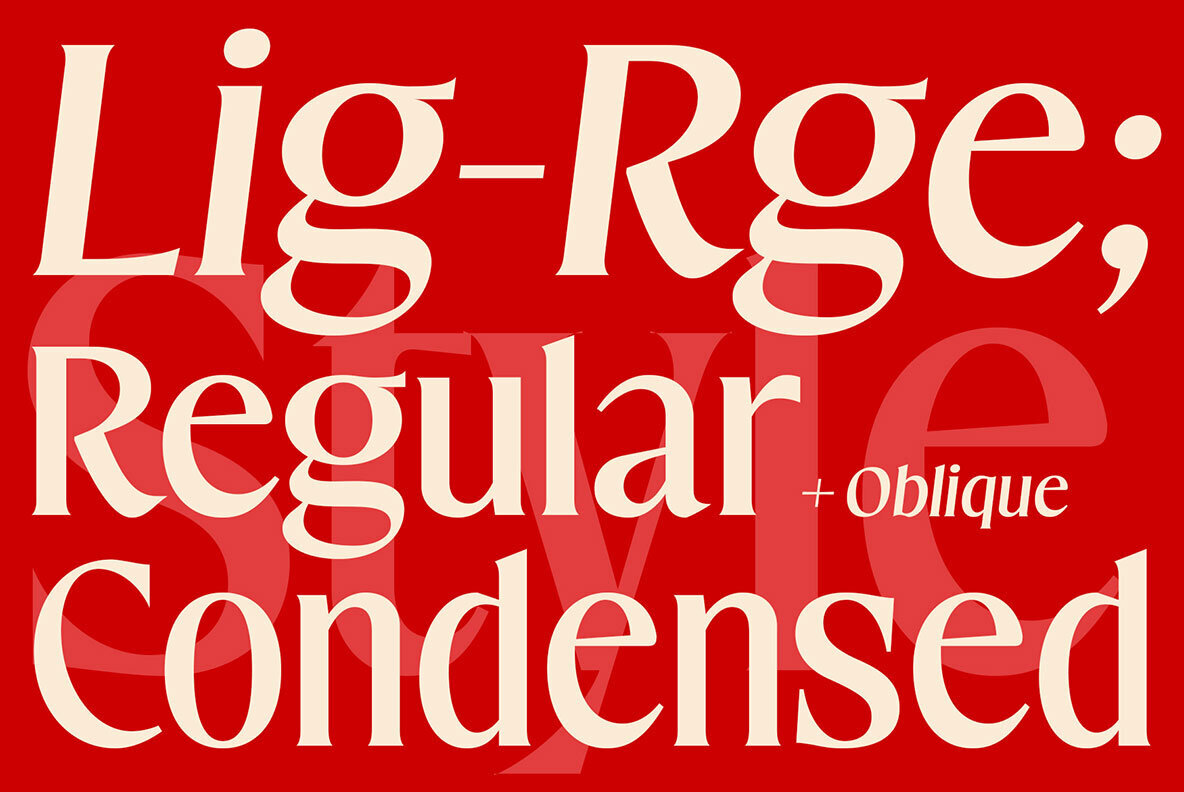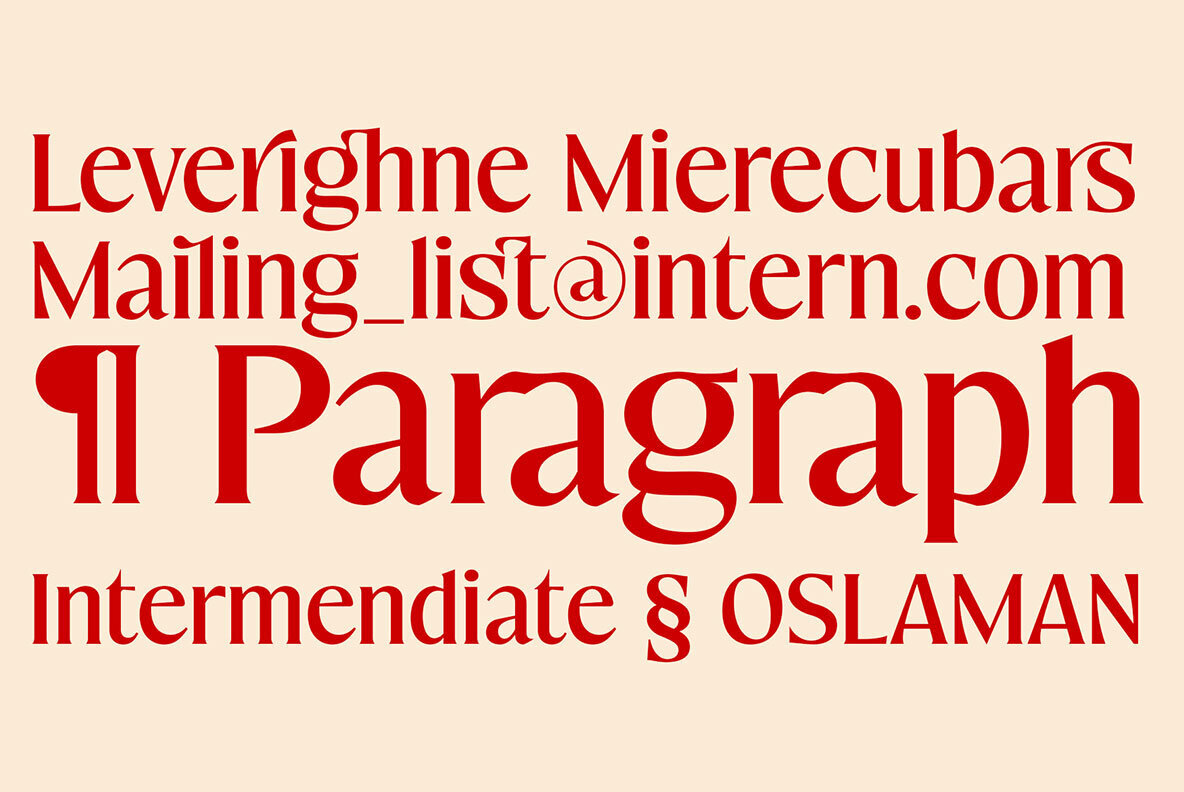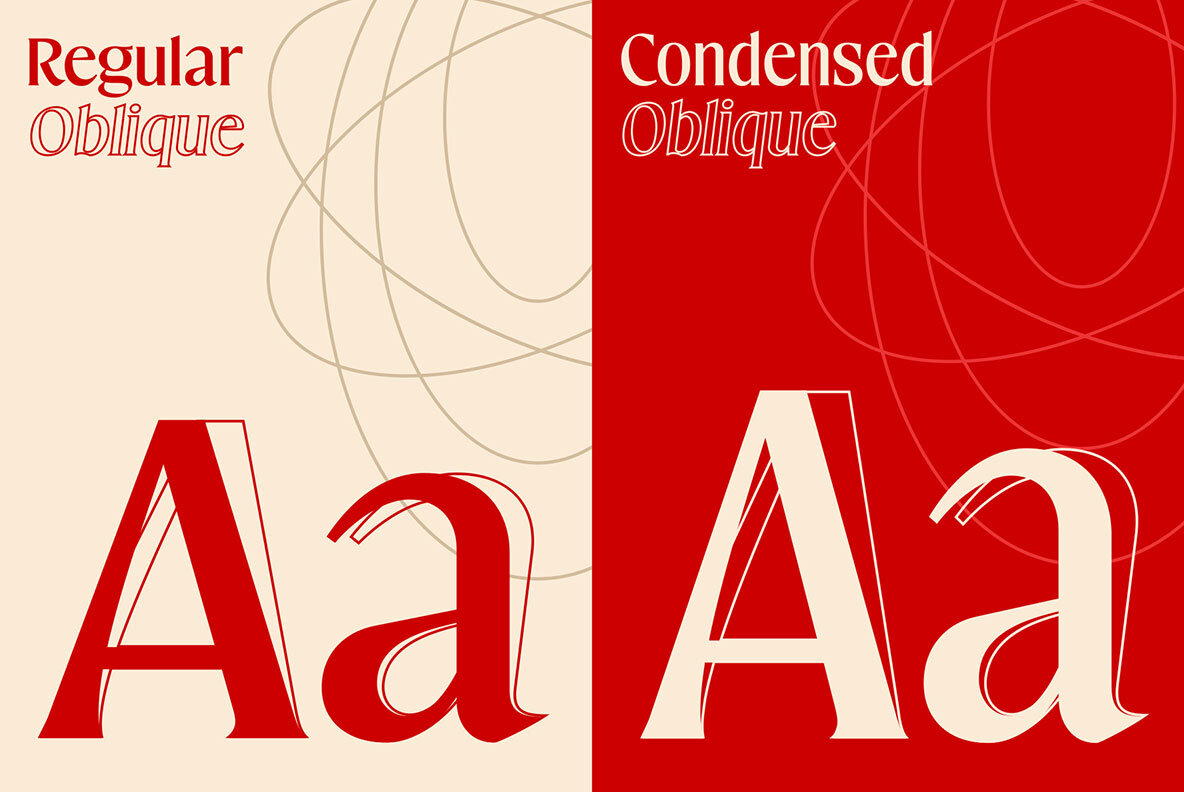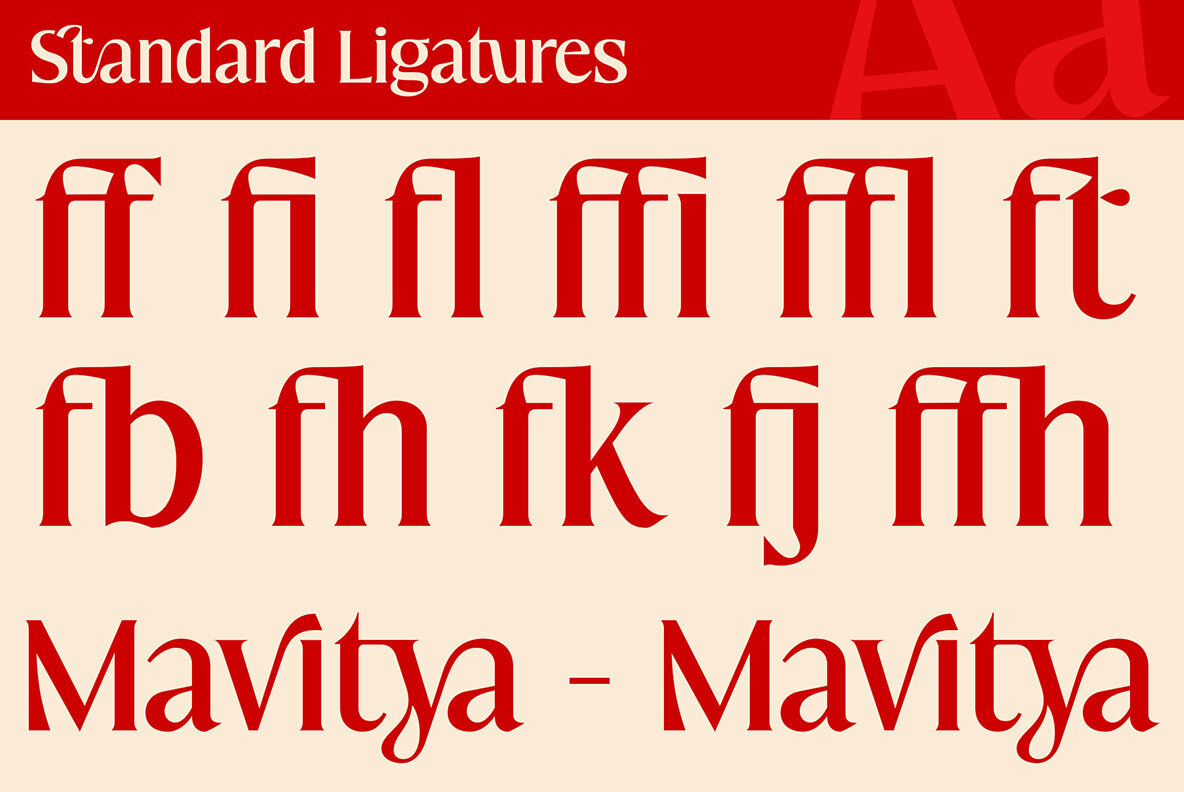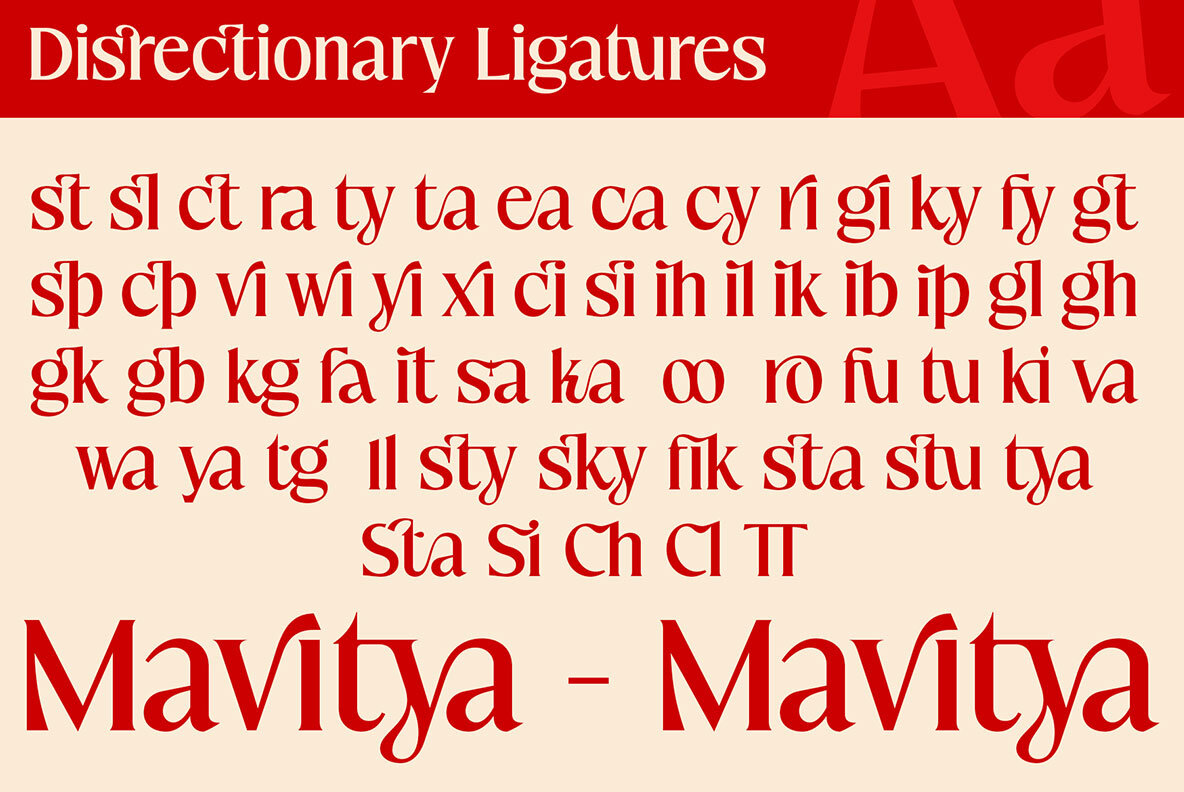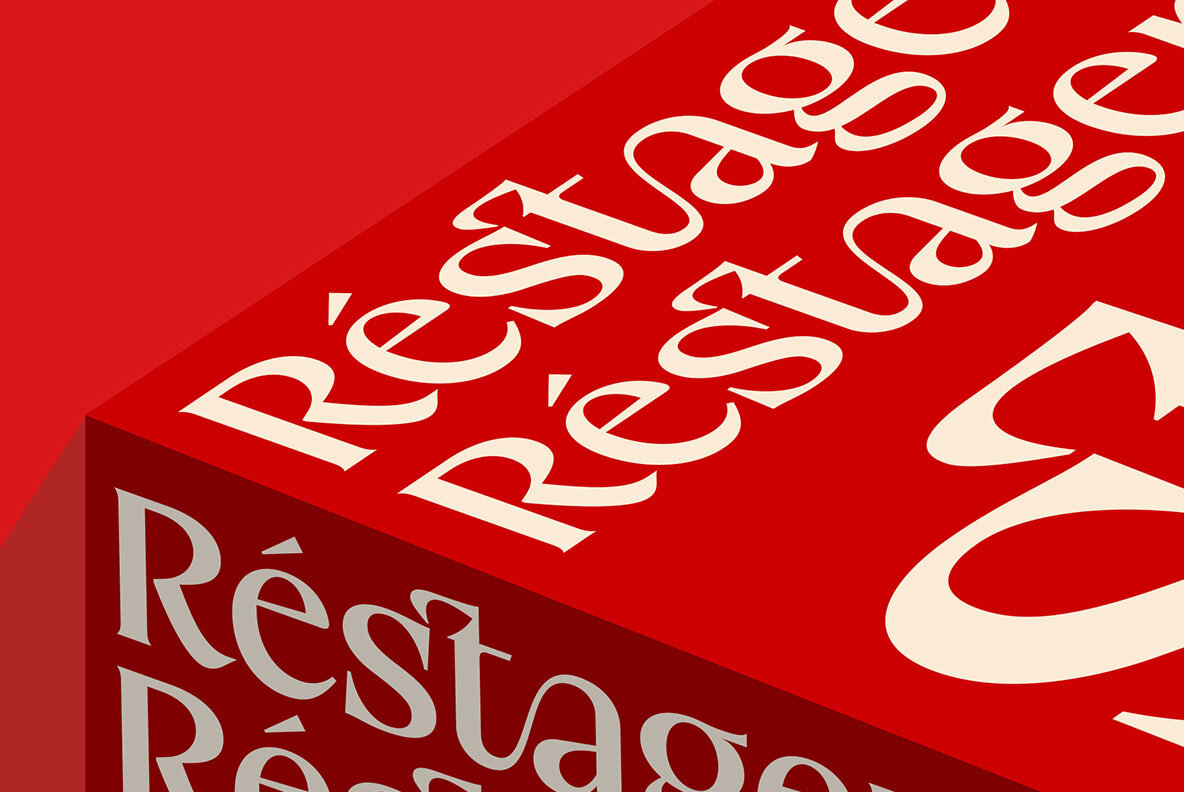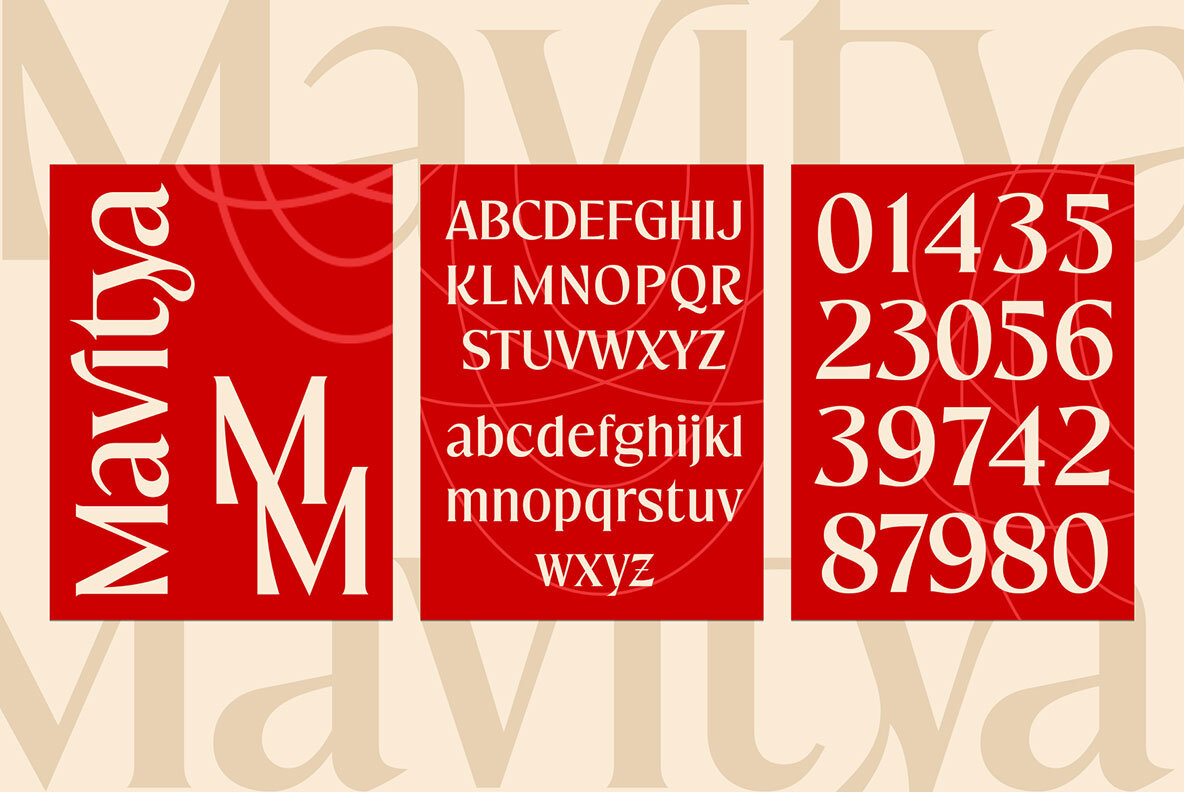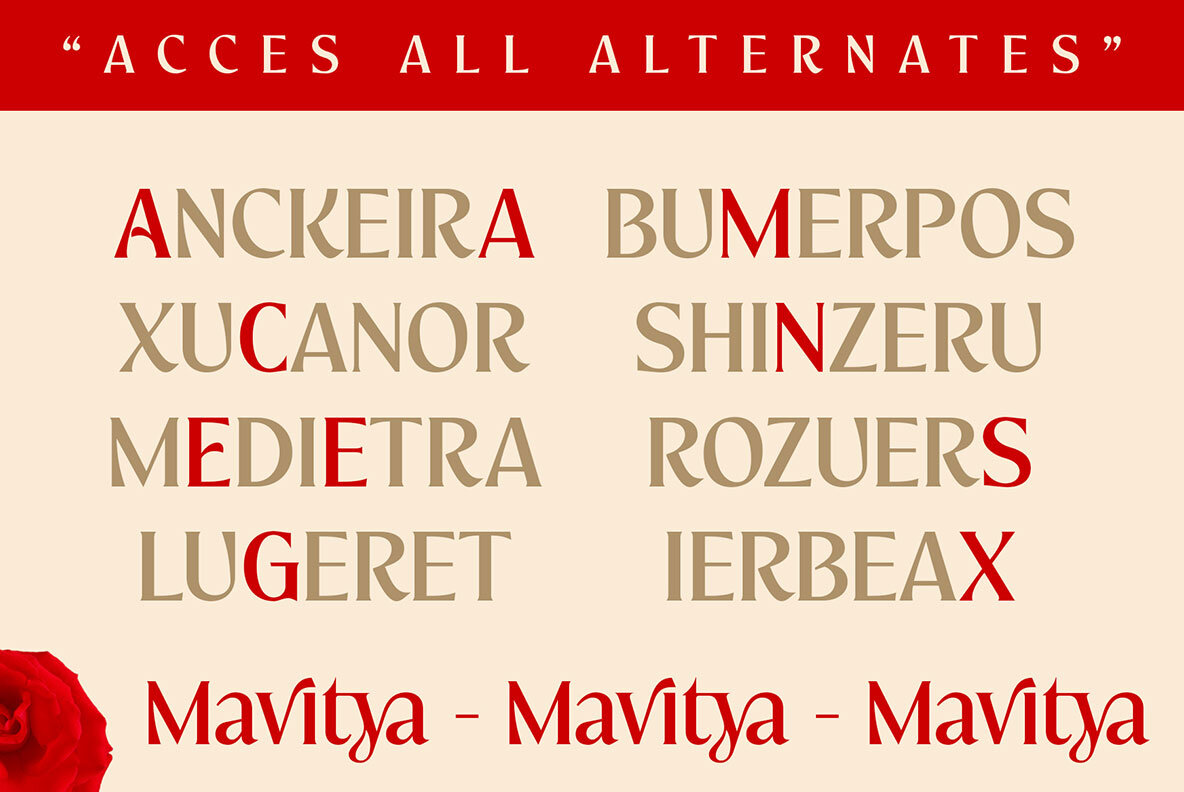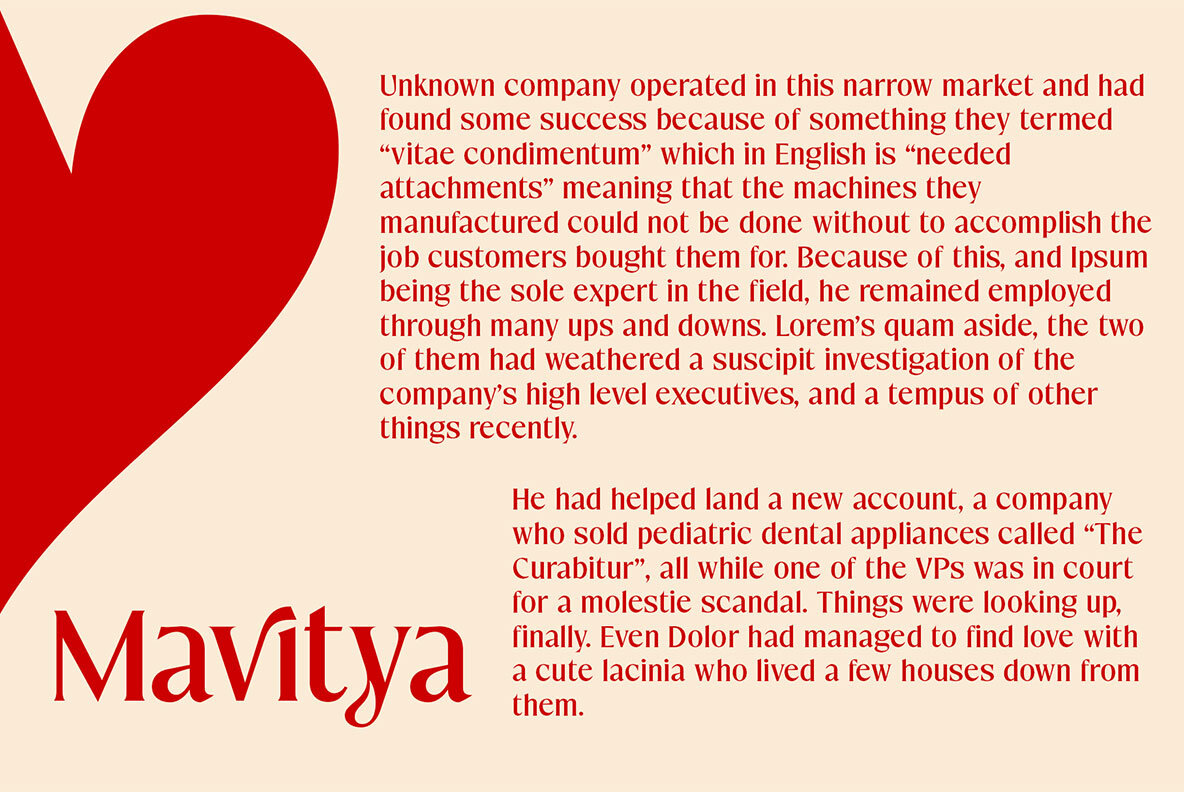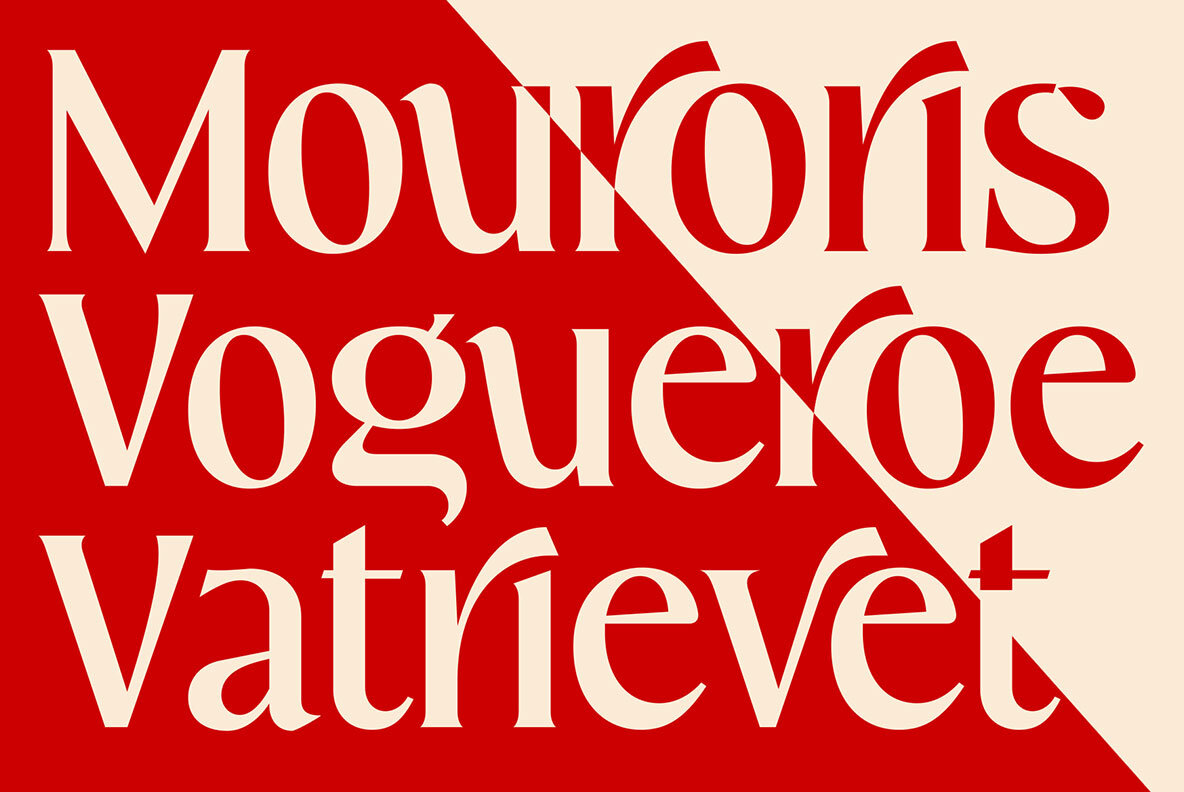
Mavitya Font
Mavitya is a serif font that combines classic elegance with a modern style, characterized by smooth curves and beautiful binding. Available in both regular and condensed versions, this font offers four distinct styles. It is designed to deliver a sophisticated and contemporary approach to typography, featuring unique ligatures and multi-language support. Mavitya is ideal for creating a distinct, creative, and expressive look for your branding, advertising, packaging, headlines, magazines, websites, and other large projects. To fully appreciate the design capabilities of Mavitya, it is recommended to use software that supports OpenType features and Glyphs panels, such as Adobe and Corel Draw applications. This allows you to access all Glyph variations easily. The development of this font family has been a true labor of love, aiming to make the design process as enjoyable and seamless as possible. Thank you for choosing Mavitya. Let your creativity shine!Mavitya: Classic Serif with a Modern Twist